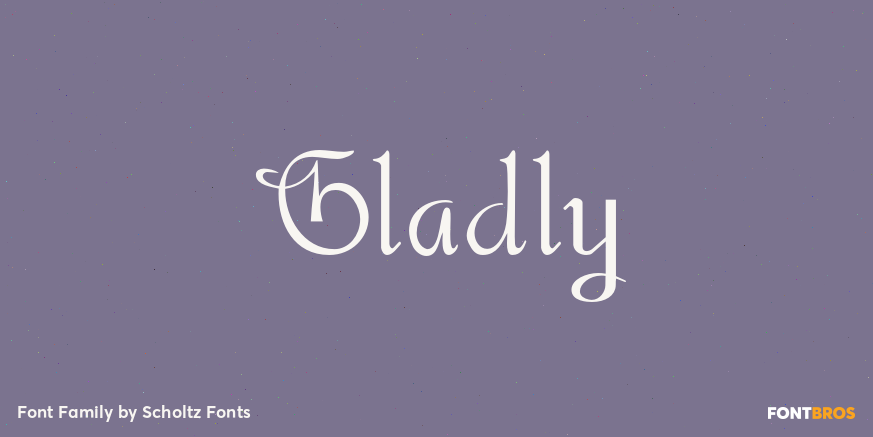
Gladly
About Gladly
Gladly is based on an earlier Scholtz Font – Margaux, which appeared as a simple oblique font. The Gladly collection lends itself to the design, packaging and advertising of everything with a romantic feel – weddings, greetings, cosmetics, lingerie, book…